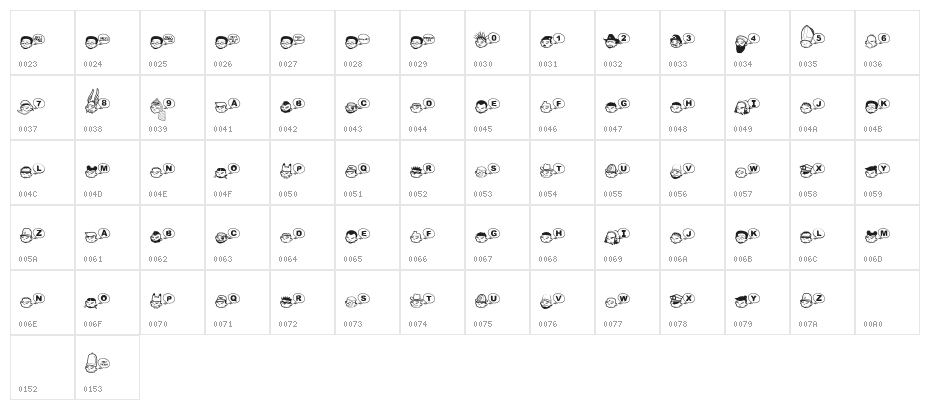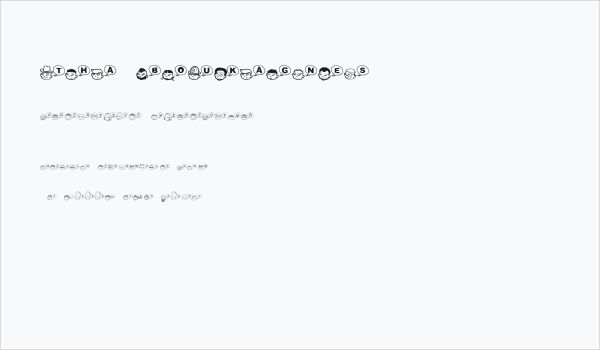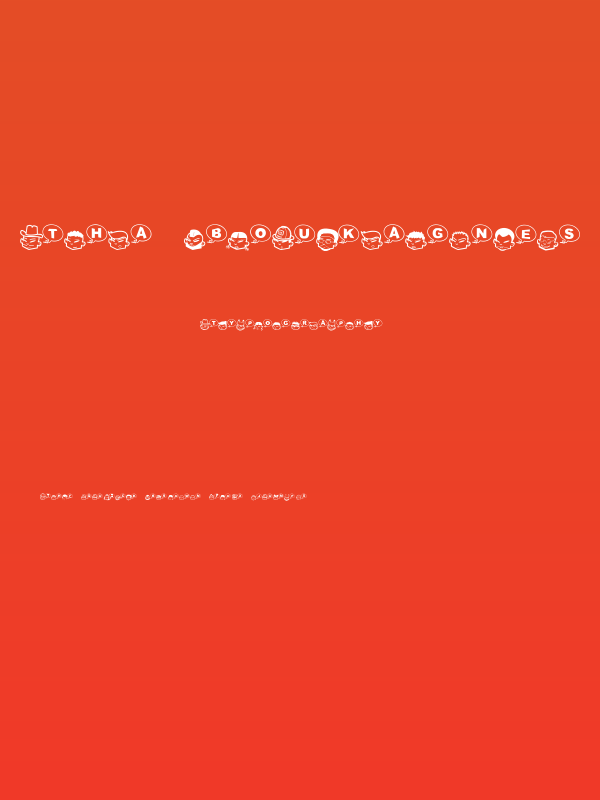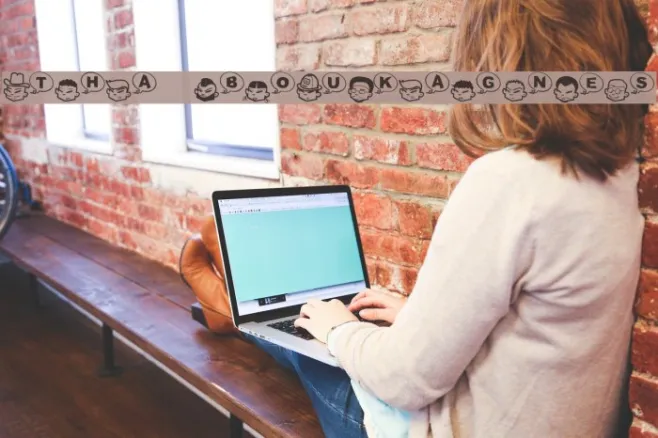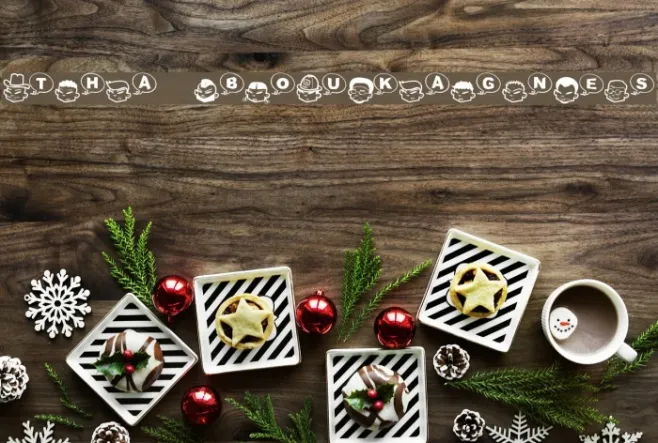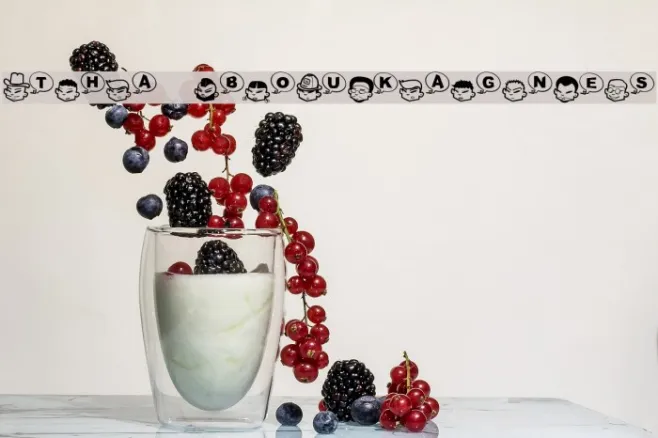
Tha Boukagnes Font
Tha Boukagnes Description
This font is a playful and whimsical display typeface featuring characters with cartoonish faces integrated into each letter and number. Each character is uniquely designed with distinct facial expressions and accessories, adding a humorous and engaging element to the text. The uppercase and lowercase letters are consistent in style, maintaining the same level of detail and creativity. The numbers also follow this theme, each with its own character design. The special characters are represented by speech bubbles with various expressions, further enhancing the font's playful nature. This font is highly decorative and is best suited for projects that require a fun and lighthearted touch.